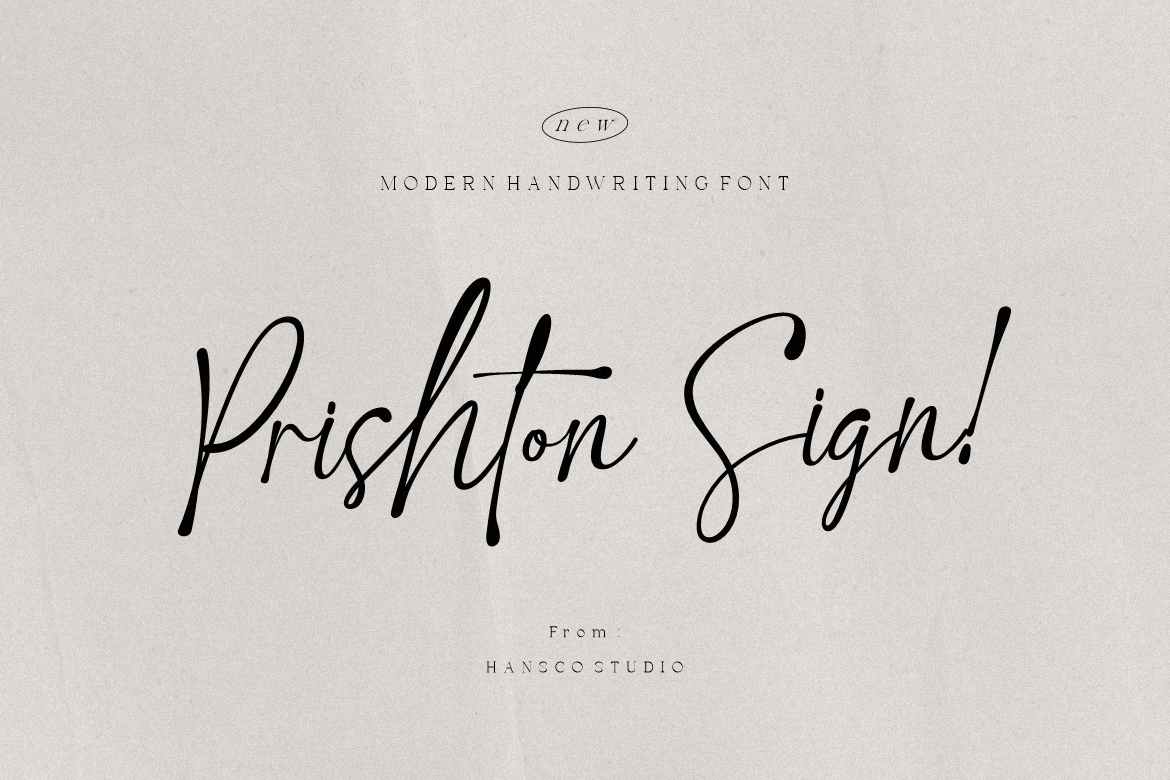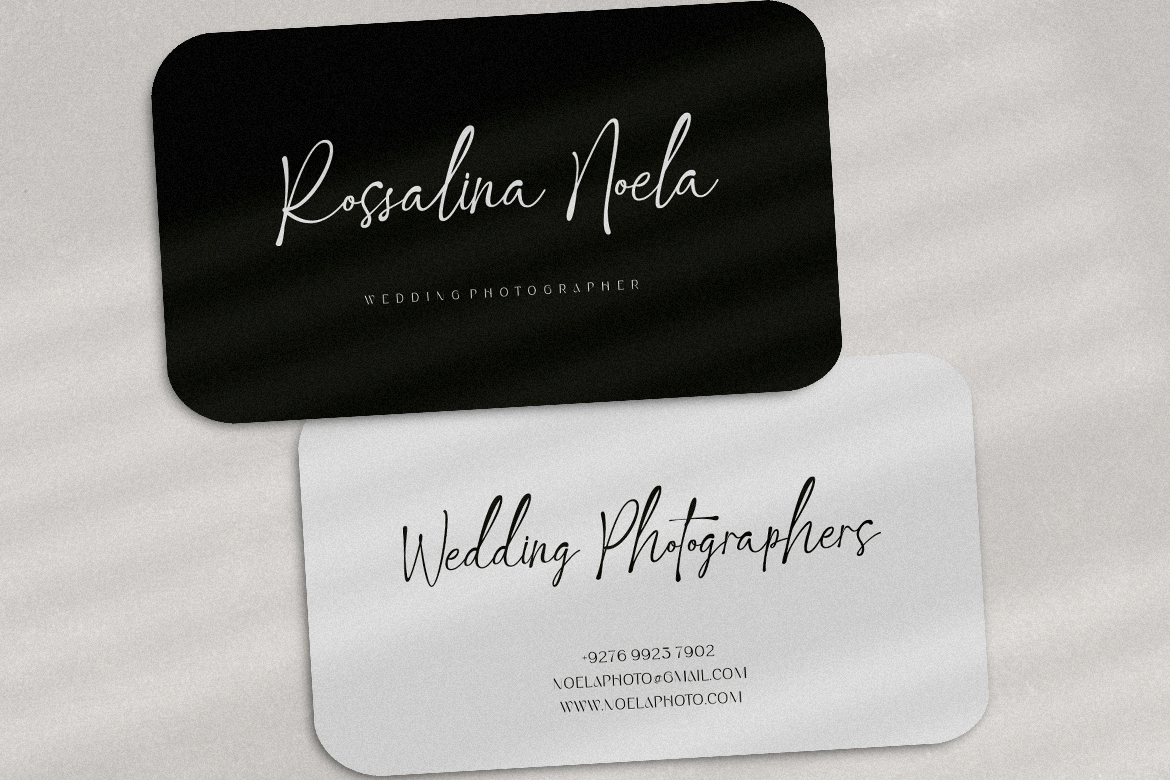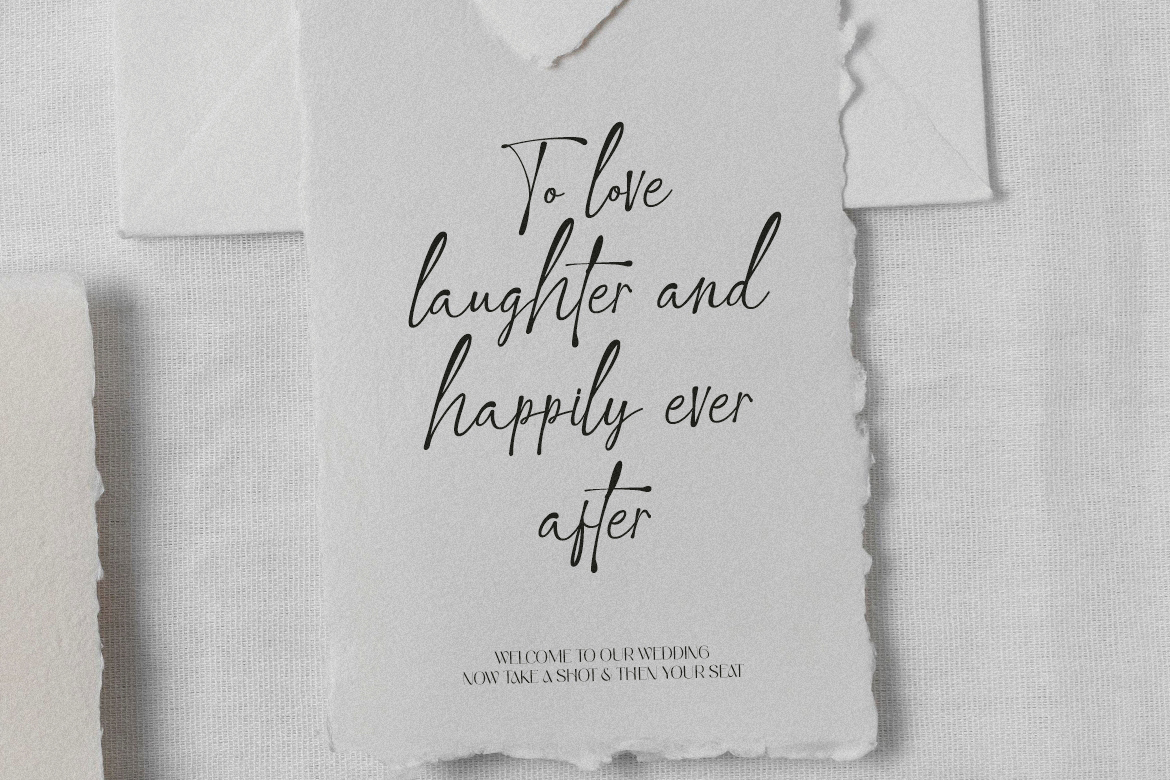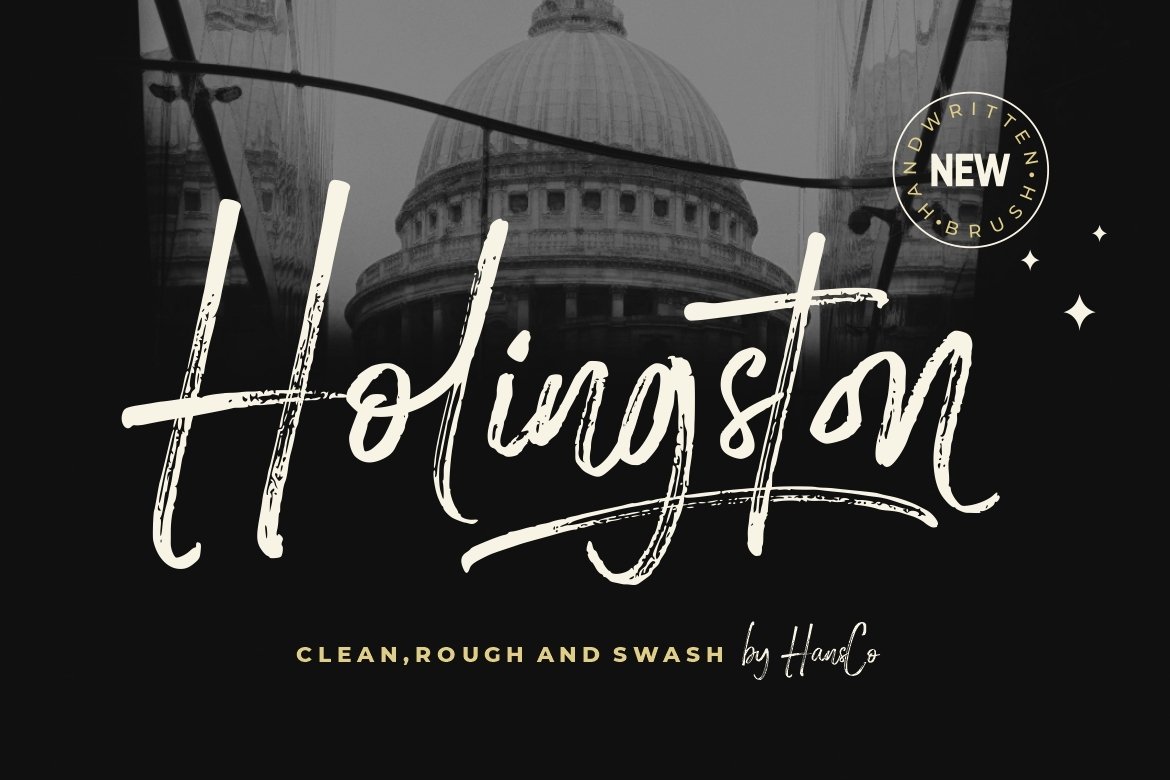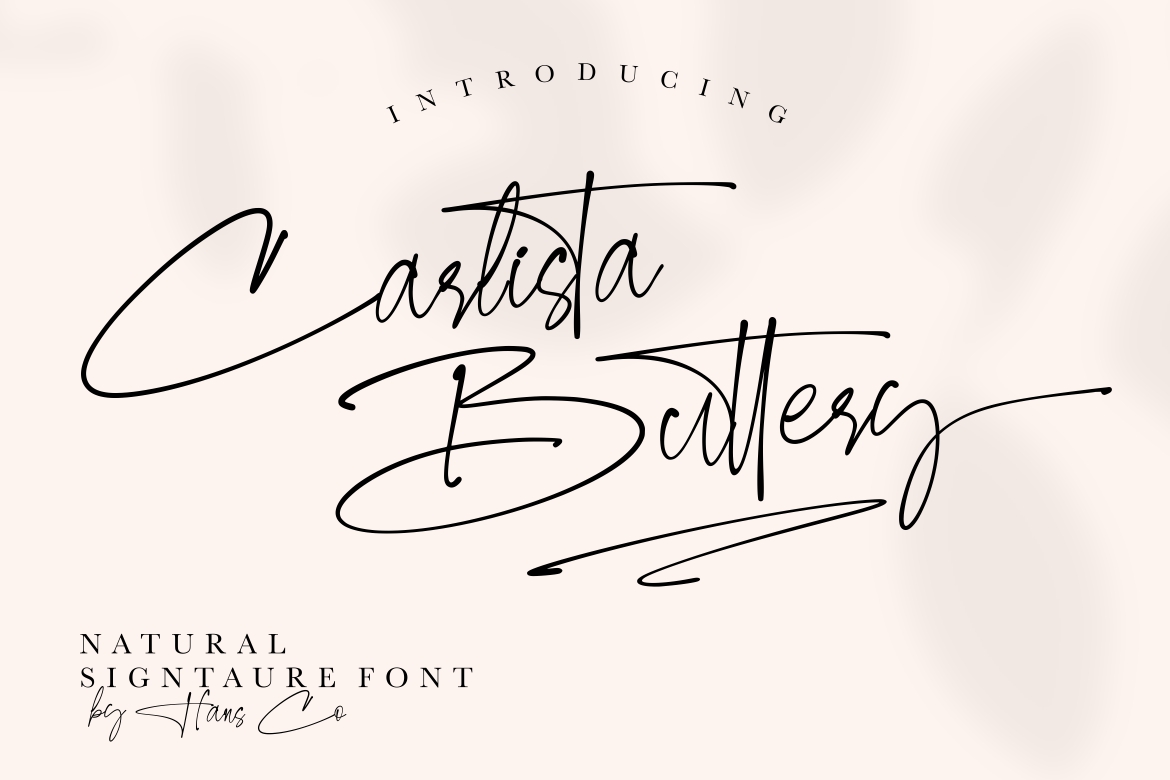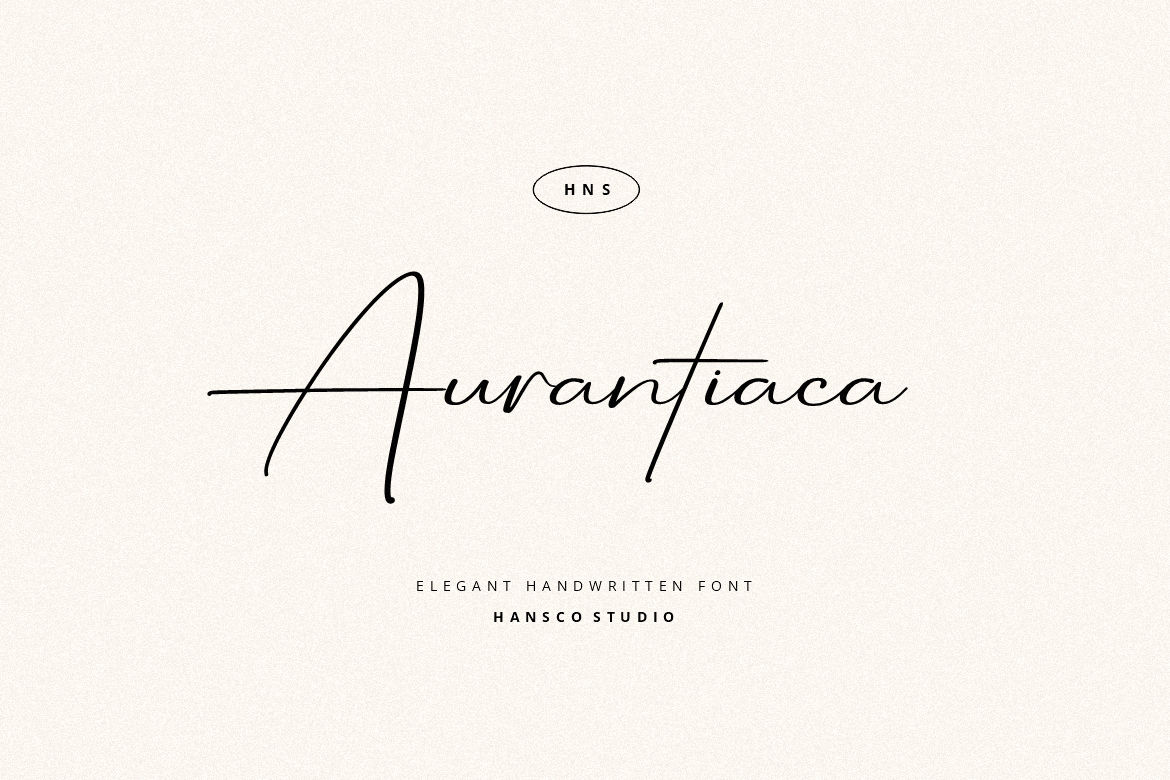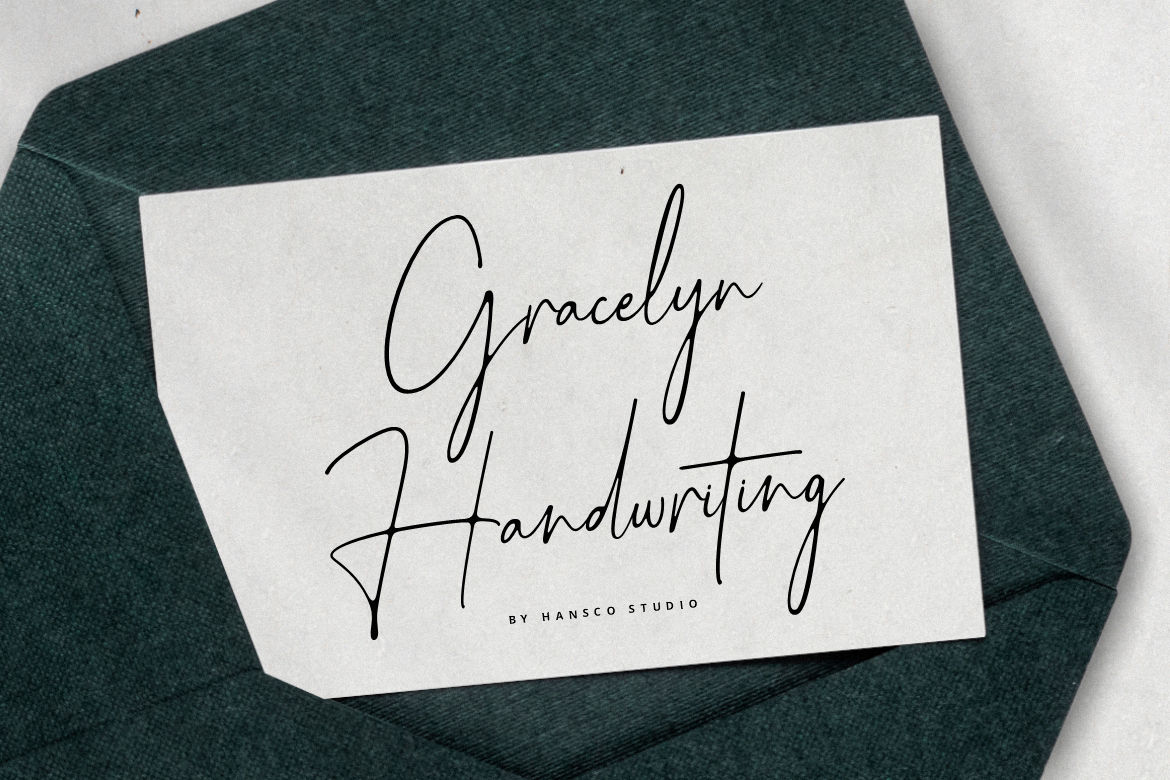
Make Your Brand Shine with Signage Fonts
Signage fonts, just like its name suggests, is typeface used on signs. It is the design that is aimed specifically for signs, wayfinding systems, logos, or other similar visual communication. Yes, those things that you look at when you are outside.
Those familiar things you found on the road are not just a design, they also have certain objectives.
One of them is to be able to read and be noticed from a distance or at speed. Because they often have certain messages, whether for information, warning, or branding. Therefore, there are some qualities they have to fulfill to meet those objectives.
Below, let’s look further at those requirements, what are there to be considered in choosing certain fonts for signs, and some recommendations for you who need significant fonts for your design.
Key Aspects for Effective Signage Fonts
Due to the specific use of the design, there are aspects and qualities that you should consider when choosing what font to use in your design.
These aspects are important to ensure that the messages the design carries are understood easily. They also influence how people perceive and interact with the design.
⦁ Legibility
The design of signs or logos of certain buildings or brands is meant to be read by the public. It is important to choose fonts that would be able to be read from a great distance, as well as, readability both at noon and night.
⦁ Contrast & Clarity:
If you aim for the message of your logos or signs to be able to be read clearly, you might consider the reflective background and color contrast between the illustration and the font. They help improve readability of your design.
⦁ Brand Identity
Typography is one of the important components in your brand. It conveys tone and meaning for the audiences to perceive. Choosing the right font is crucial for signage purposes of your brand.
Beyond Road Signs: Branding
Effectiveness of signage fonts, as explained above, lies in legibility, viewing clarity, and appropriate tone for the brand. Typography composition; size, style, color, are important to guide the viewers in perceiving the key message of the brand.
The choice of typography is an important key of branding. Signature fonts, in this case, are pivotal. They serve as your brand’s identity, visual ambassadors who communicate your brand’s personality and values.
The typography you choose would be displayed in your social media platform, storefront, or office facade. That is where the customers and audiences grasp your brand for the first time. By means, the first impression of the customers and audiences matters.
Ultimately, fonts, or typography, in general, are not only for aesthetic purposes, but also are strategic tools. If they are thoughtfully selected, they support your brand identity and help shape customers and audiences’ interpretation of your brand at the first glance.
Signage Fonts to Make Your Logo Stands Out
As signage typefaces are important for your brand and logos, you have to choose the one that helps them stand out. Exploring the internet might get you to hundreds of fonts.
Let this article show you some pretty fonts from HansCo Studio that would make your logo readable, noticeable in the middle of oceans of brands.
1. Prishton Sign
Prishton Sign is a charming hand-written font. This font has a kind of nostalgic and antique feeling in it. It is an ideal font for your boutique, wedding invitations, and personal-felt handmade product packaging if you want to give off a feminine, elegant romantic vibe.
2. Carlista Buttery
Sharing a slightly similar vibe with Prishton Sign, Carlista Buttery is an elegant font decorated with gorgeous tails. This font is for you, if your brand is aiming for a delicate, graceful, light, and soft image. It is perfect for beauty products and cute kids fashion labels. It also could represent the dreamy vibe of a children’s storybook cover.
3. Gracelyn Handwriting
Full of love, the Gracelyn Handwriting font radiates elegance, drama, and cinematic thickness. This font comes with a touch of modern calligraphy and natural strokes to ensure clarity and readability. It is the right font for labeling a moody fragrance of a romantic perfume. It also shines in love-themed campaigns on Mother’s Day.
4. Aurantiaca
Aurantiaca has a modern, stylish, romantic feel in it. It looks clear, but still gorgeous. This font conveys a luxurious feel, therefore it is perfect for perfumes, love-themed campaigns or products and as a signature-style designer label.
5. Holingston
Holingston might remind you of Europe. It evokes the feeling of strolling through a European city filled with vintage buildings and industrial charms. Its sharp and pointed edges reflect modern-retro and urban aesthetics. This font is perfect to represent a brand identity that is confident, distinctive, and rooted in character.